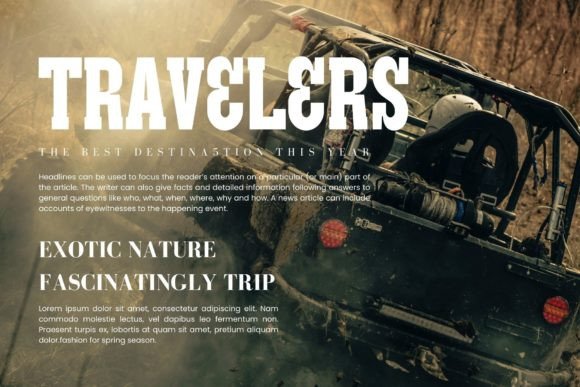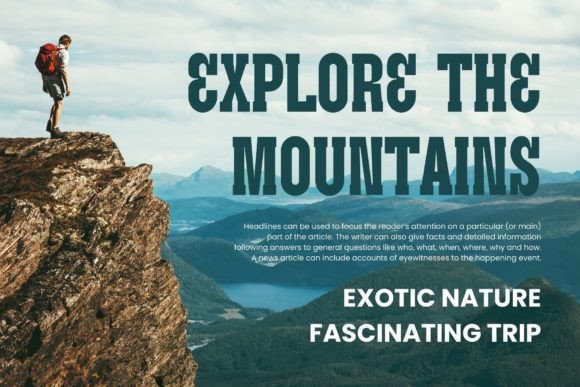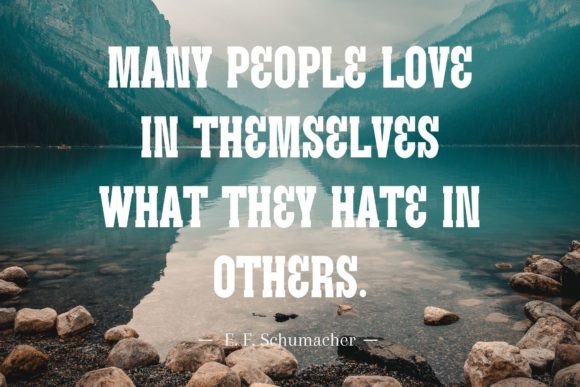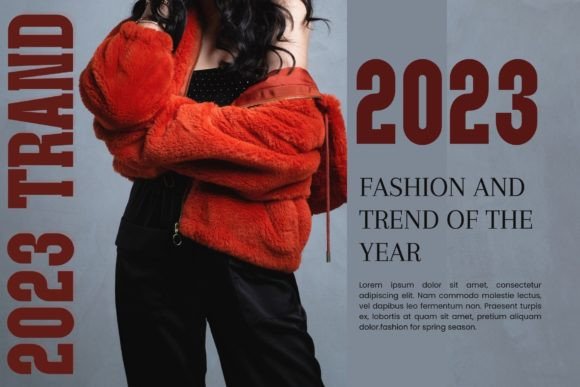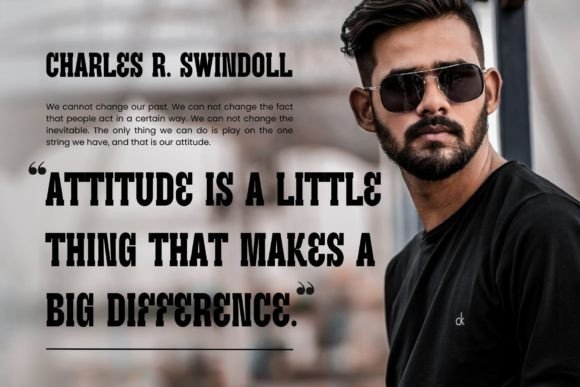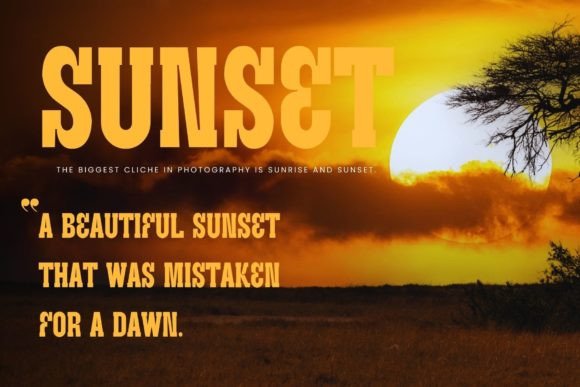
I still remember the frustration of working on a project, hours spent crafting the perfect design, only to have it fall flat due to a lackluster font choice. My client wanted a bold, modern look, but I was stuck in a font rut. That’s when I discovered **Gains Font**, a sleek and contemporary display typeface that instantly elevated my design game.
An Honest Review of Gains Font
So, what makes Gains Font so special? Let’s dive into the good stuff and a few quirks I’ve encountered.
- ✨ **Clean lines and bold presence**: Gains Font has a confident, modern look that’s perfect for headlines, branding, and creative displays.
- ✅ **Versatility**: This font works beautifully in both digital and print formats, making it a great addition to any design project.
- 💡 **Easy to read**: Despite its bold nature, Gains Font remains surprisingly legible, even at smaller sizes.
- 🤔 **Limited use in body text**: While Gains Font shines in display settings, it’s not the best choice for lengthy body text due to its bold nature.
- ⚠️ **Glyph limitations**: Some users have reported limited glyph options, which might restrict creative freedom for certain projects.
The Backstory of Gains Font
Rumor has it that Gains Font was inspired by the urban landscapes of the 21st century. Its creator aimed to craft a typeface that embodies modernity, sophistication, and a touch of edginess. Although the exact story behind Gains Font remains a mystery, its sleek design and versatility have captured the hearts of designers worldwide.
| Font Name | Gains Font |
| Author | Graphicxell |
| Is Gains Font suitable for body text? | No, Gains Font is best used for headlines, titles, and short text displays due to its bold nature. |
| Does Gains Font support OpenType features? | Yes, Gains Font offers some OpenType features, including ligatures and stylistic alternates. |
With its **distinctive and captivating style**, Gains Font is sure to elevate your typography game and add a touch of modern sophistication to your design projects. Whether you’re a designer, crafter, or creative hobbyist, this versatile font is an excellent addition to your toolkit.